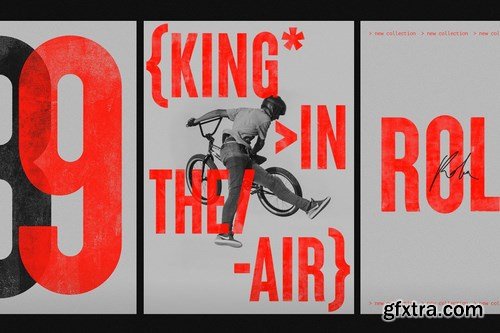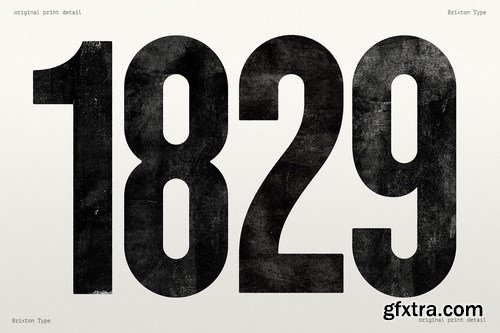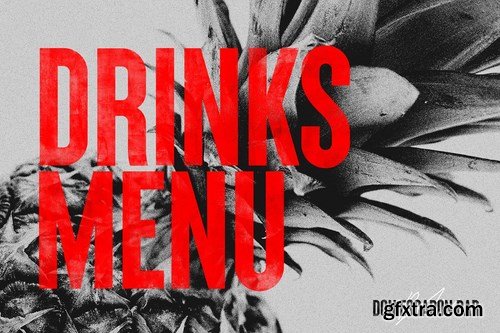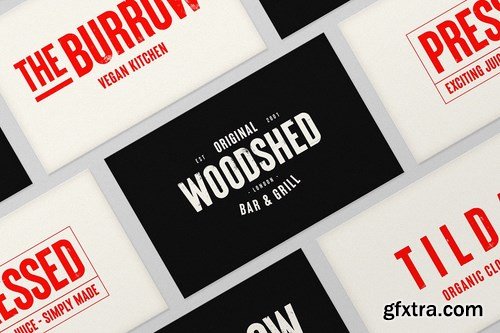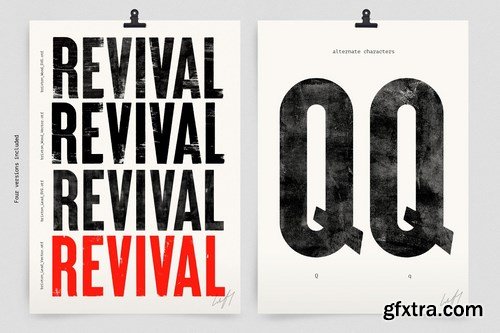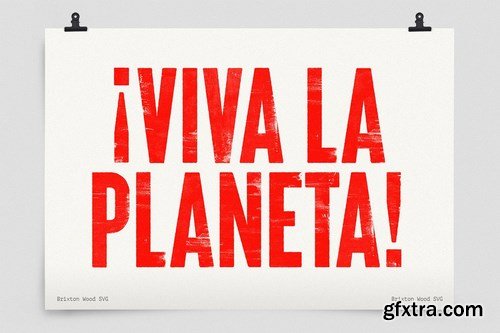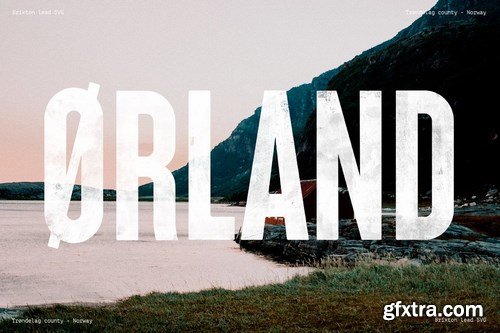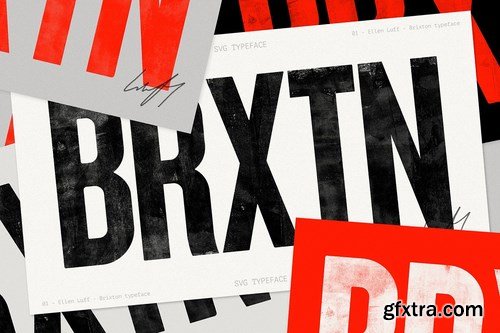
Brixton Typefamily includes two SVG letterpress styles: Wood and Lead
Brixton is a bold hand-printed typefamily, that celebrates the original letterpress style and all its beautiful imperfections. It's narrow powerful shapes lend itself to strong design, whilst the textures give it an authentic voice.
SVG fonts contain tonnes of detail and texture never possible before, they can be used in any colour and on any background. Brixton typeface includes two SVG letterpress styles: Wood and Lead. Both have completely different transparent textures with incredible detail. Brixton typeface also includes their vector counterparts, making the Brixton a versatile letterpress font for everyone. The use of colour reveals Brixtons full potential, whilst powerful designs wishing to highlight the gritty textures look great in black and white too. Details: Brixton is an all caps font, with two alternatives for every letter, to maintain the custom made look, without obvious doubles. It includes ALL Central European language support. Brixton Typefamily includes two font formats to suit everyone's situation. Brixton SVG Lead - Soft original tonal texture with density variants and original nicks and grit Brixton SVG Wood - Rich in rough texture and true wooden grain Brixton OTF Lead // Brixton OTF Wood - Versatile vector counterparts, less detailed but great for branding, identities and use as a Webfont. (Works universally on all software). Brixton also includes high-resolution files PNG files 3000px of every glyph for people who want to use the font on a very large scale. To keep files size down only Central European language support is available in the SVG and OTF font. However a much greater range of foreign support is available in the PNG files (inc. Vietnamese), and can be manually added to your text in Photoshop/Illustrator. Please note The font previewer above can't render SVG fonts, so don't worry what it looks like there. But you can check out the OTF counterparts. The SVG format requires Photoshop CC 2017 or Illustrator CC 2018 (or newer) The Regular OTF format works universally. P A S S W O R D BRIX32454_GFXTRA